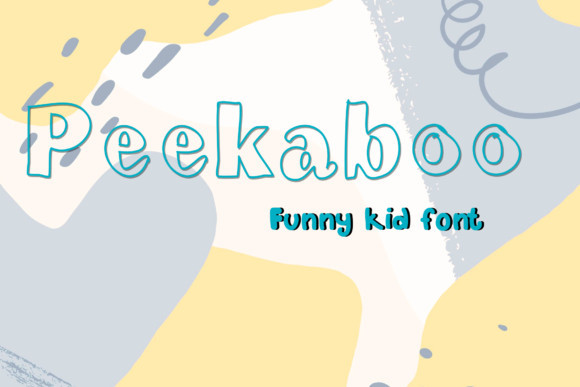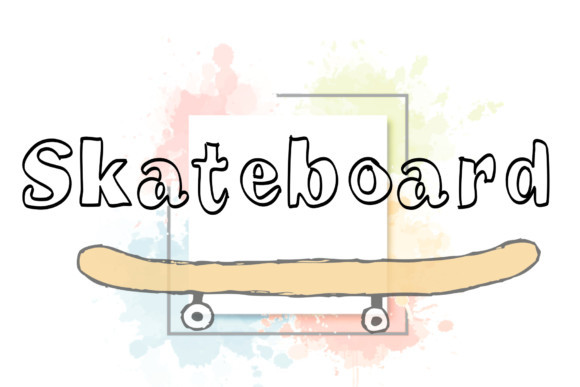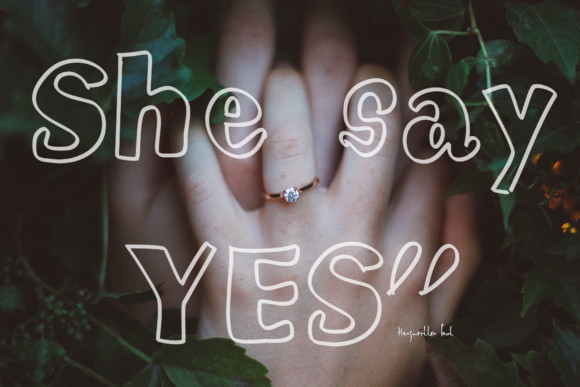
Peekaboo Font
Peekaboo is a chunky charactered display font. Its friendly feel makes this font incredibly versatile, fitting a wide range of contexts. Add it to your creative ideas and notice how it makes them stand out!